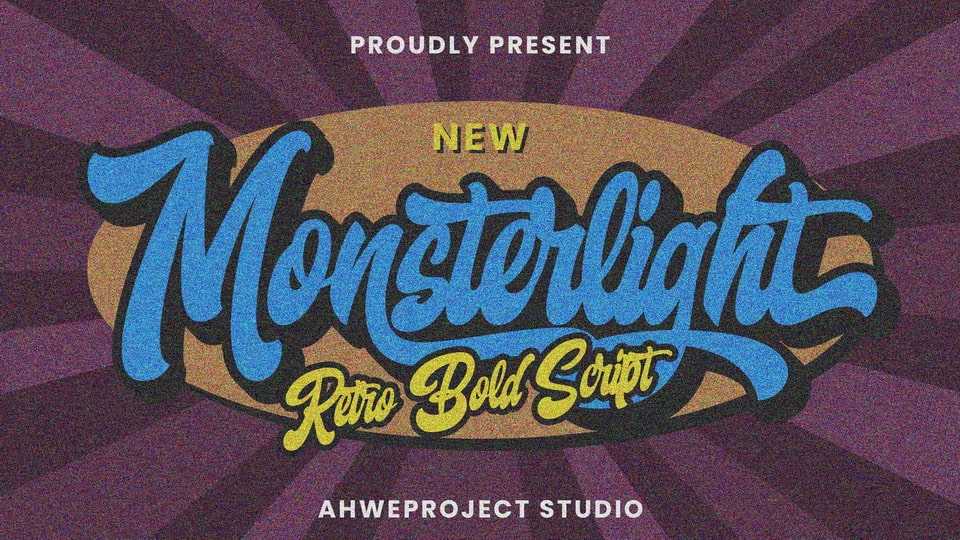
Download Monsterlight font, a retro, bold script typeface that will bring you back to the 60s – 80s. This typeface has an extruded version, so you can create a retro effect with ease.